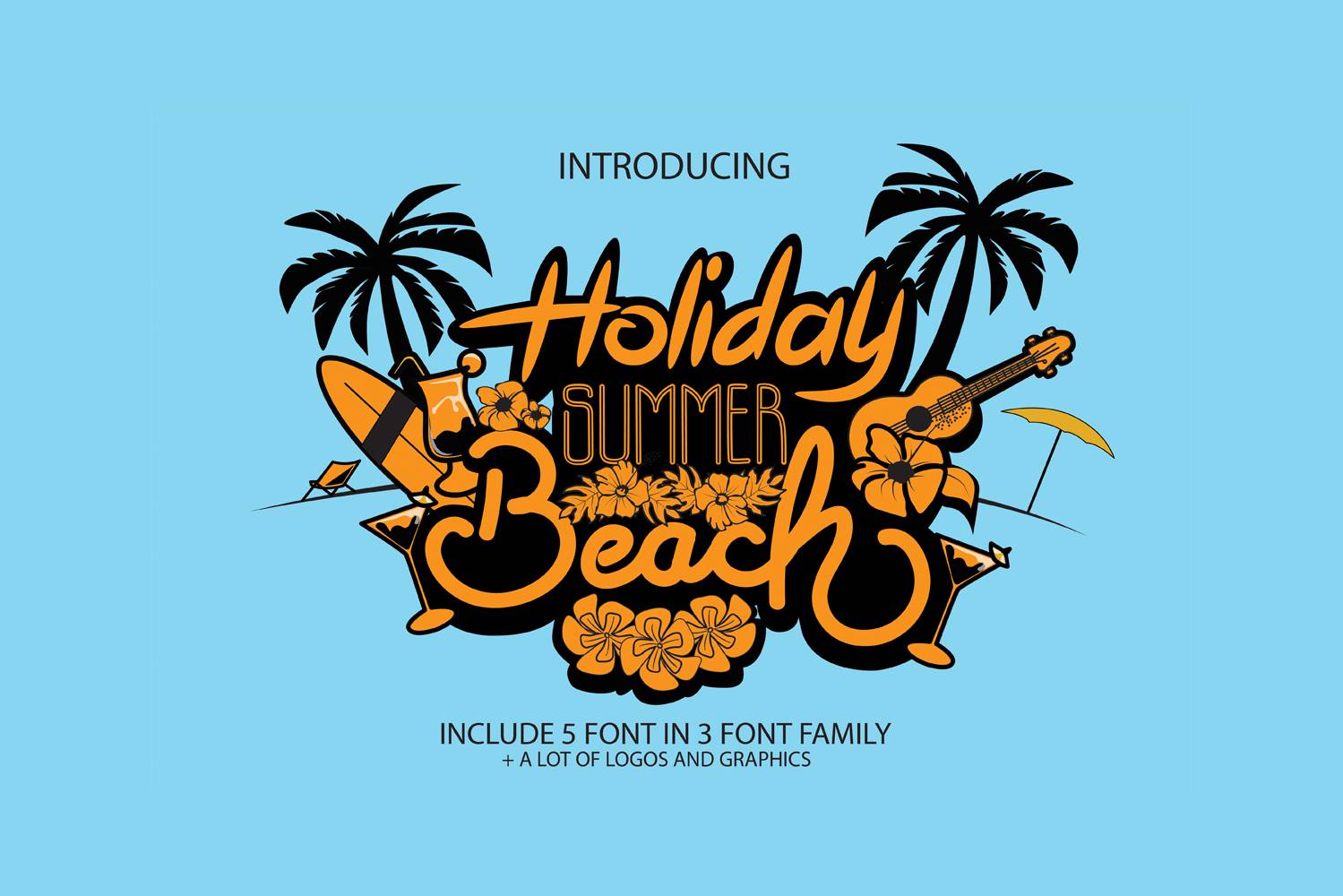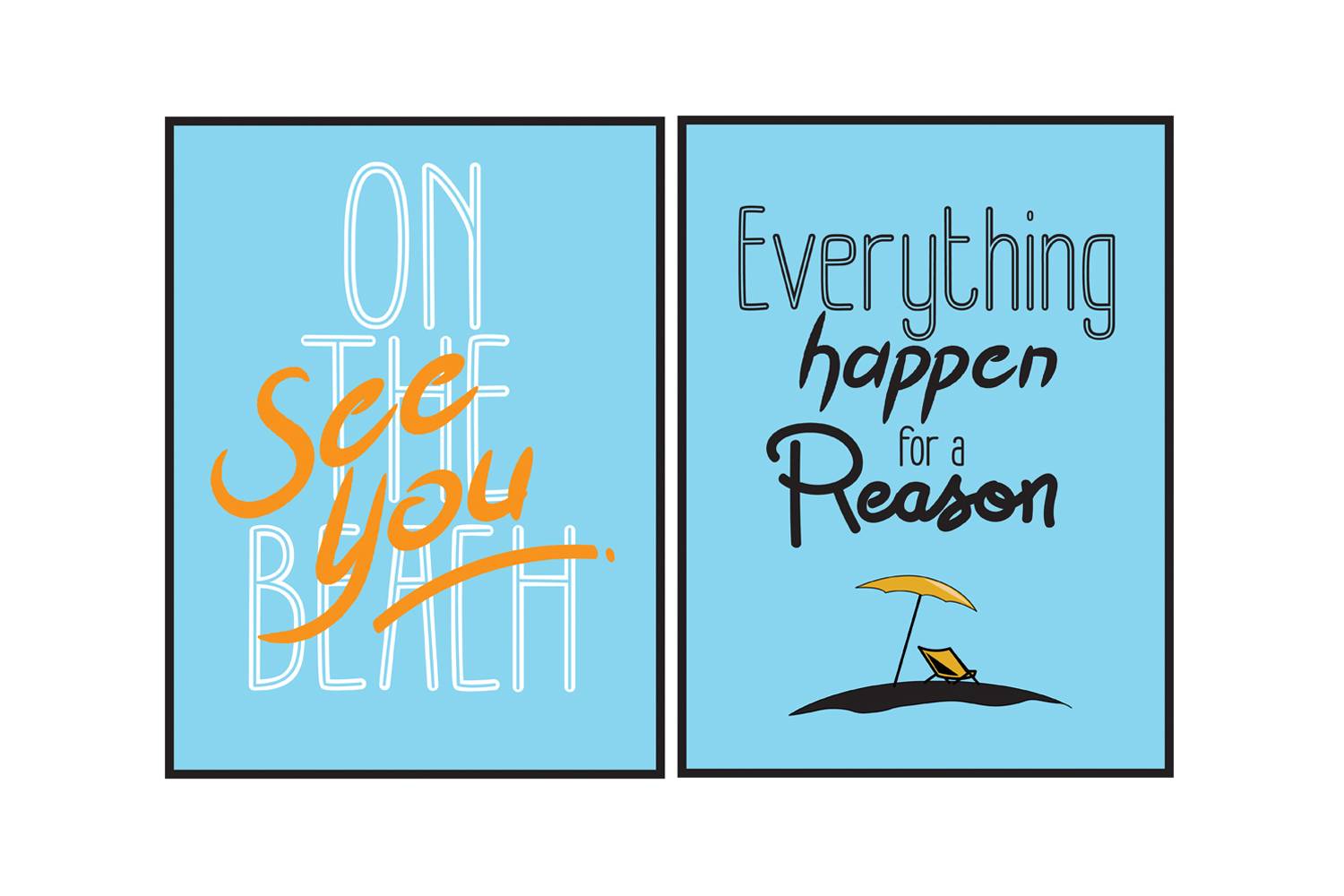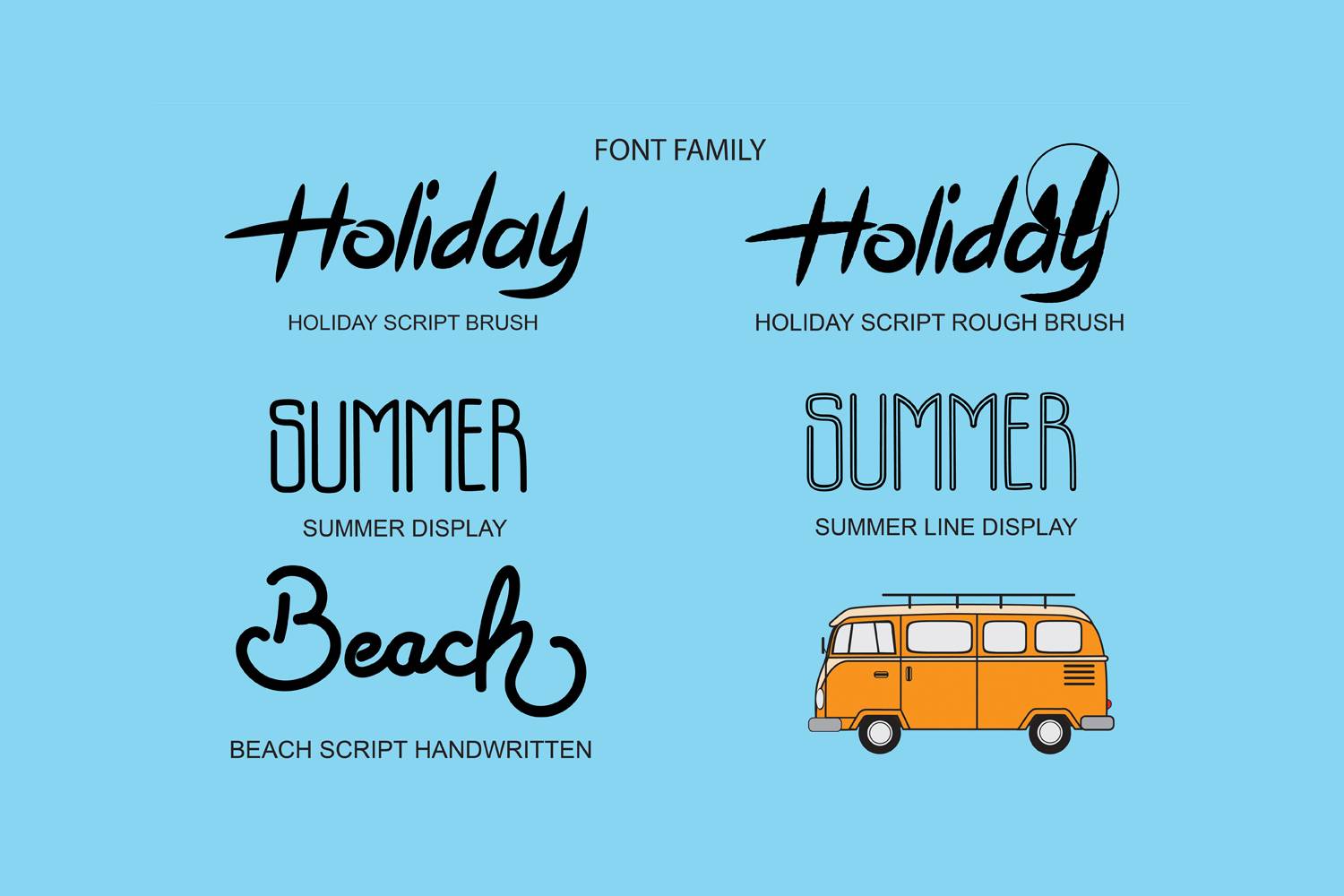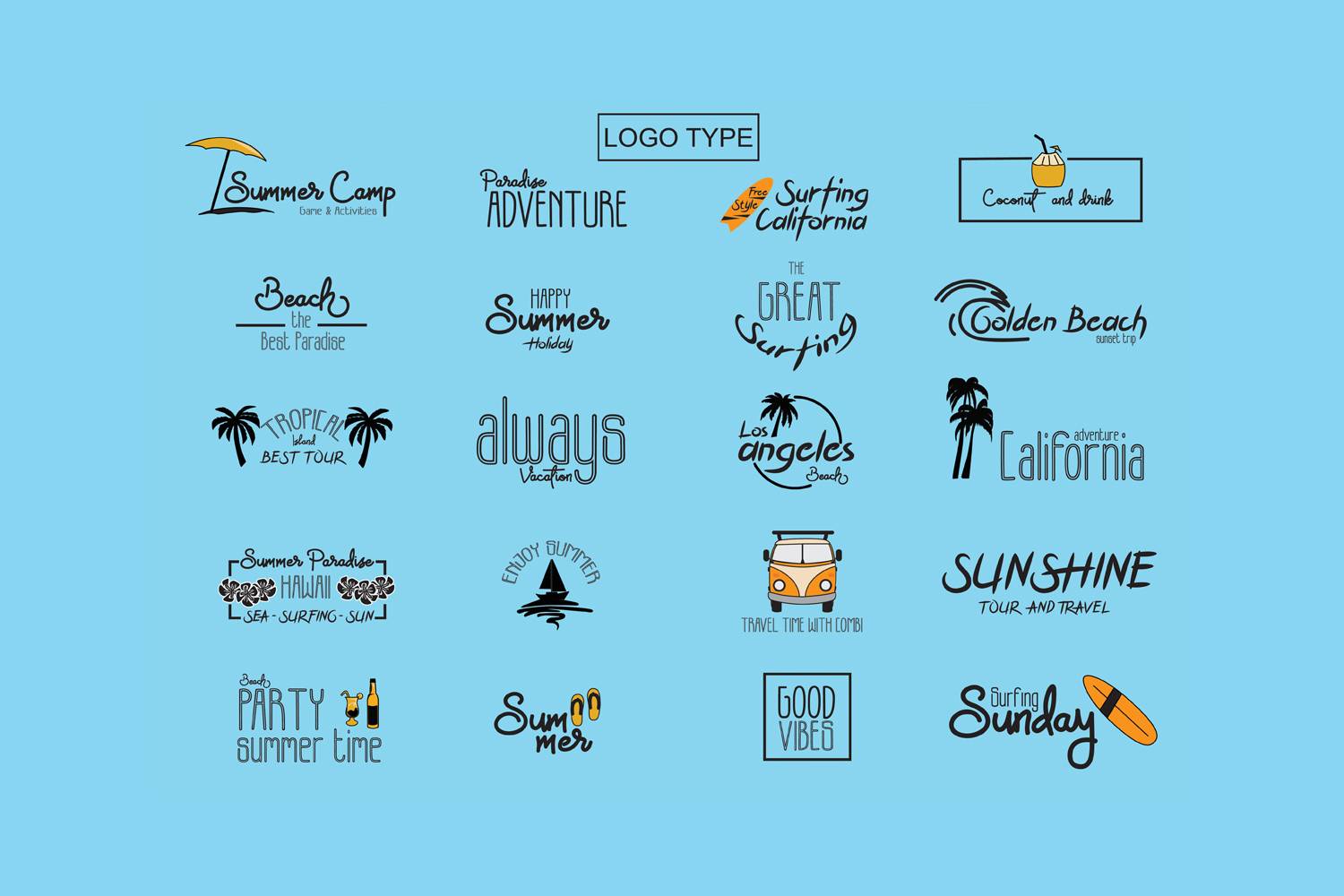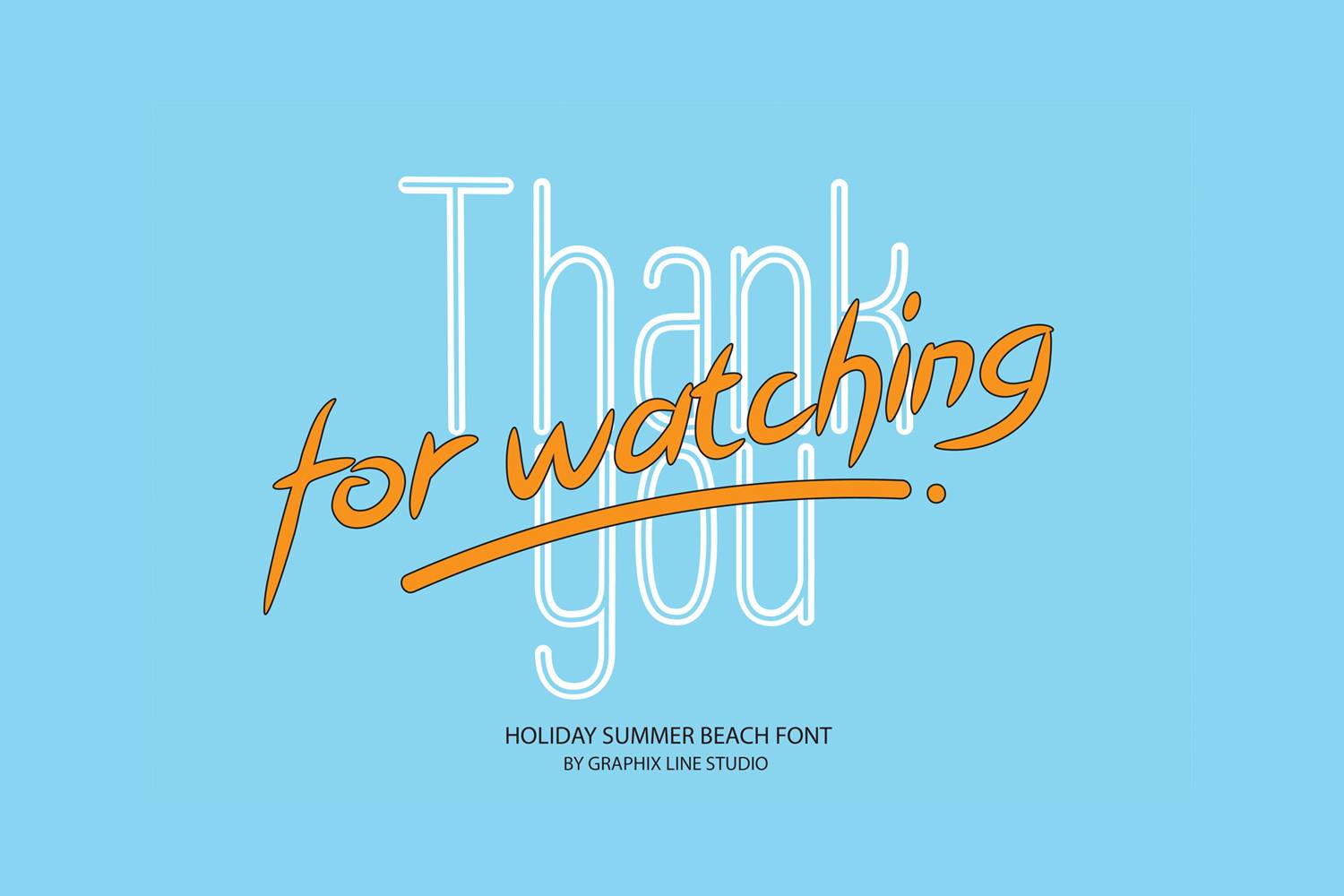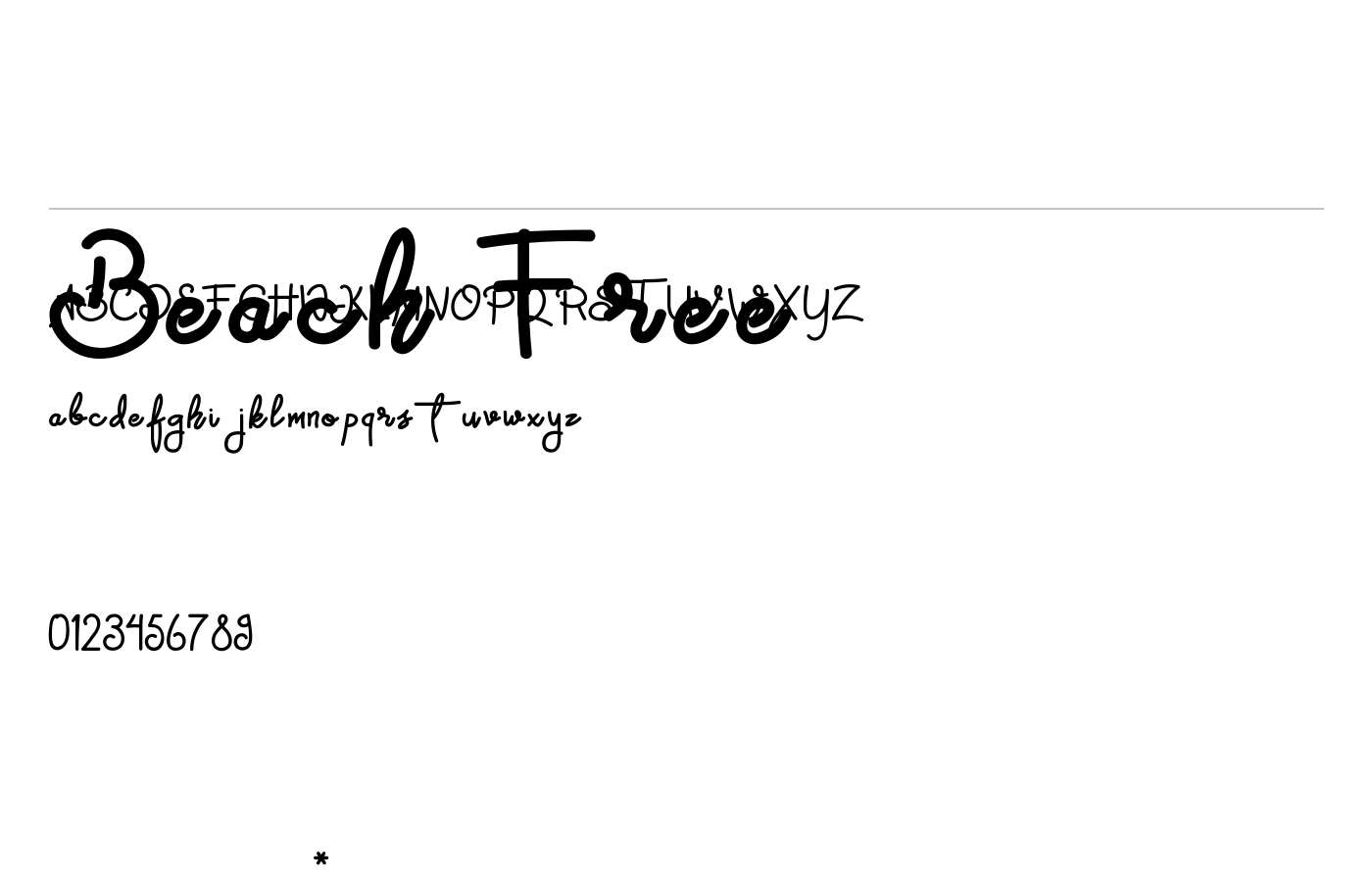
Holiday Summer Beach is a playful and casual script font with a hand-drawn feel, featuring smooth, flowing strokes and a slightly whimsical touch that evokes a relaxed, summery vibe. Its light weight and airy spacing make it ideal for fun, informal designs such as beach-themed branding, invitations, or posters that want to convey warmth and friendliness. This font works great for projects needing an approachable, cheerful style that captures the carefree spirit of a summer holiday.
Holiday Summer Beach Font
About Holiday Summer Beach Font
| Font family | Holiday Summer Beach Font |
| Designer | Ipung |